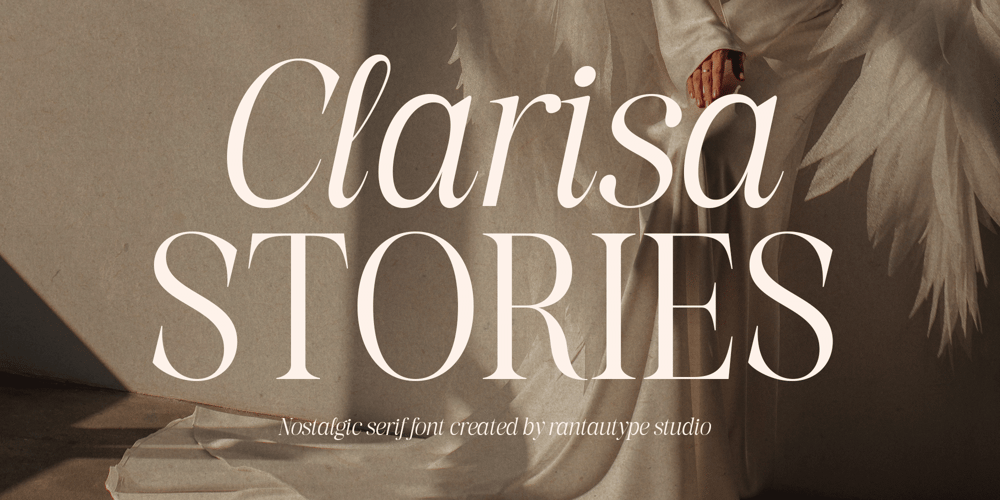
Clarisa Stories Font Family was designed by Yudi Pratama Chandra and published by RantauType. Clarisa Stories contains 2 styles and family package options. Clarisa Stories – is a glamour eighties magazine inspired serif with complementary italic version. Clarisa Stories display serif font that embraces elegance and grace, both come in two versions one with more contrast and crisper than the other. In true Eighties style, combination the reguler and italic make nostlagic but elegant, mix and match them to create eye-catching effects. With its versatility and contemporary appeal.Clarisa Stories is a beautiful choice for any creative endeavor, creating elegant, modern, chic, lifestyle design such as logos, title, cover, branding, invitations, wedding designs, display and magazine, social media posts, advertisements, printed quotes, product packaging, product designs, labels, photography, watermarks, special events and more. Now you can using Clarisa Stories to make a stunning design.Features Standar character A-Z and a-z Numberial and Functional Ligature and Alternate Works on PC & Mac Simple installations Accessible in Adobe Illustrator, Adobe Photoshop, Adobe InDesign, even work on Microsoft Word. Fonts include Multilingual Support for: Afrikaans, Albanian, Asu, Basque, Bemba, Bena, Breton, Chiga, Cornish, Dutch, English, Estonian, Filipino, Finnish, Friulian, Galician, Gusii, Indonesian, Irish, Italian, Kabuverdianu, Kalenjin, Kinyarwanda, Luo, Luxembourgish, Luyia, Machame, Makhuwa-Meetto, Makonde, Malagasy, Manx, Morisyen, North, Ndebele, Nyankole, Oromo, Portuguese, Quechua, Romansh, Rombo, Rundi, Rwa, Samburu, Sango, Sangu, Scottish, Gaelic, Sena, Shambala, Shona, Soga, Somali, Spanish, Swahili, Swedish, Swiss, German.Thank you for your purchase!Hope you enjoy with our font!